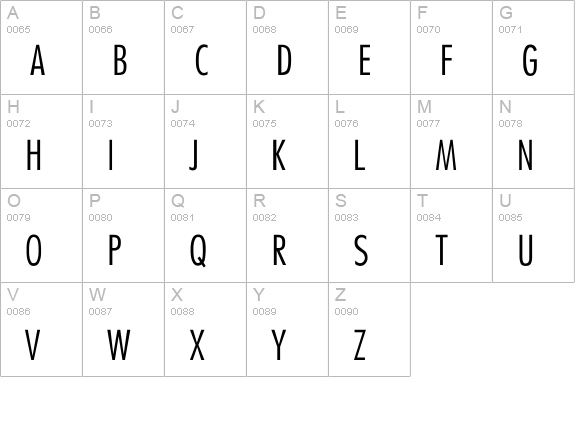
Belmar-CondensedLight-Normal is the standard, neutral variant in the Belmar typeface family \xE2\x80\x94 well suited to general body text, paragraphs, and standard typographic work.
Belmar-CondensedLight-Normal is a sleek and modern font that exudes sophistication and elegance. Its condensed style makes it perfect for creating eye-catching headlines, logos, and branding materials. The clean lines and subtle curves of this font give it a timeless and versatile appeal, suitable for a wide range of design projects. Best of all, Belmar-CondensedLight-Normal is available for free download at FontsMarket.com. This means you can easily access this high-quality font to elevate your designs without any cost. Don't miss out on the opportunity to add Belmar-CondensedLight-Normal to your font collection and enhance your creative projects with its unique charm and style. Download it today and start incorporating this beautiful font into your designs!